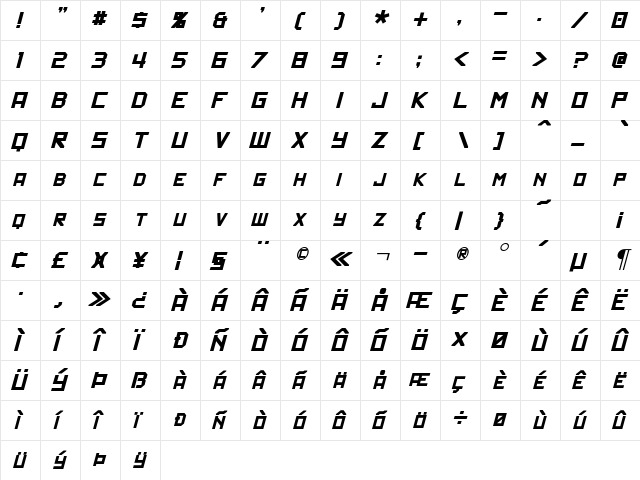
Politik Italic
| Foundry | Neale Davidson |
| Designer | Neale Davidson |
Design Context for Politik Typeface
Politik offers clean, dependable letterforms without strong stylistic allegiance, making it a practical choice for designers who need flexibility. The dynamic lean of this cut emphasises speed and emphasis in any layout.
Pro Tip: Try Politik for annotation and caption copy alongside an upright companion — the contrast in angle creates a dynamic but ordered typographic system.